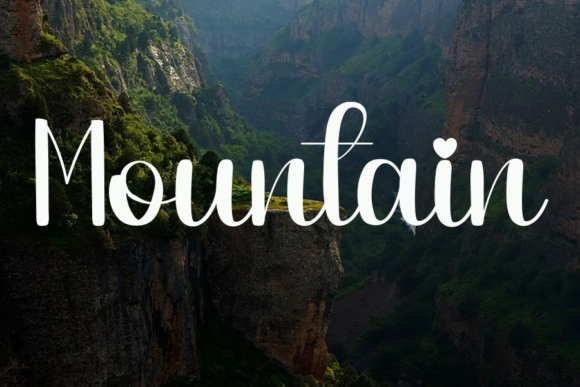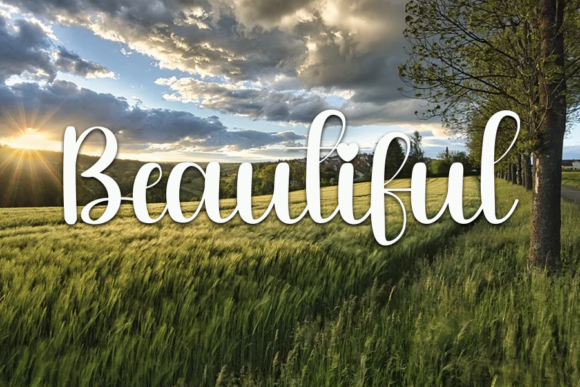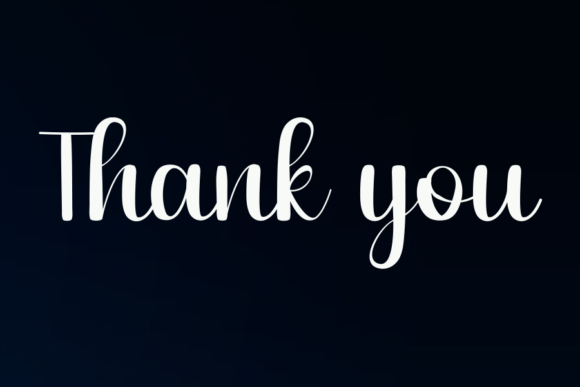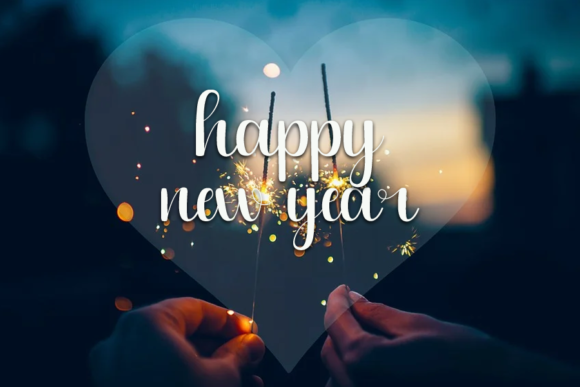
Camelia Font
About Camelia Font
Camelia is a clean, easy-to-read, and delicate handwritten font. This font was particularly crafted for those who need a beautiful and refreshing look to their designs.